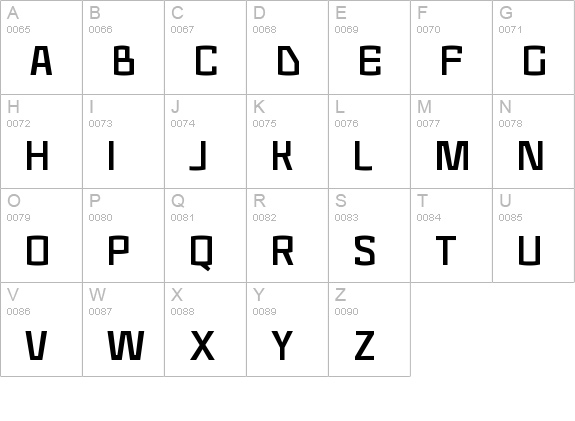
Regra Bold is a strong, high-contrast variant in the Regra typeface family \xE2\x80\x94 well suited to headlines, attention-grabbing titles, and strong calls-to-action.
Regra Bold font is a stunning display typeface that exudes strength and elegance with its bold and assertive letterforms. Perfect for making a statement in headlines, titles, and branding materials, this typeface commands attention and leaves a lasting impression. The sharp edges and clean lines of Regra Bold give it a modern and sophisticated look that is versatile for a wide range of design projects. What sets Regra Bold font apart is that it is not only visually striking, but it is also free to download at FontsMarket.com. This means that you can access this high-quality typeface without any cost, making it a valuable addition to your font library. Whether you're a designer looking to add a bold touch to your creations or a business owner wanting to elevate your brand identity, Regra Bold font is the perfect choice for making a bold statement. Download it for free today and unleash the power of Regra Bold in your designs.